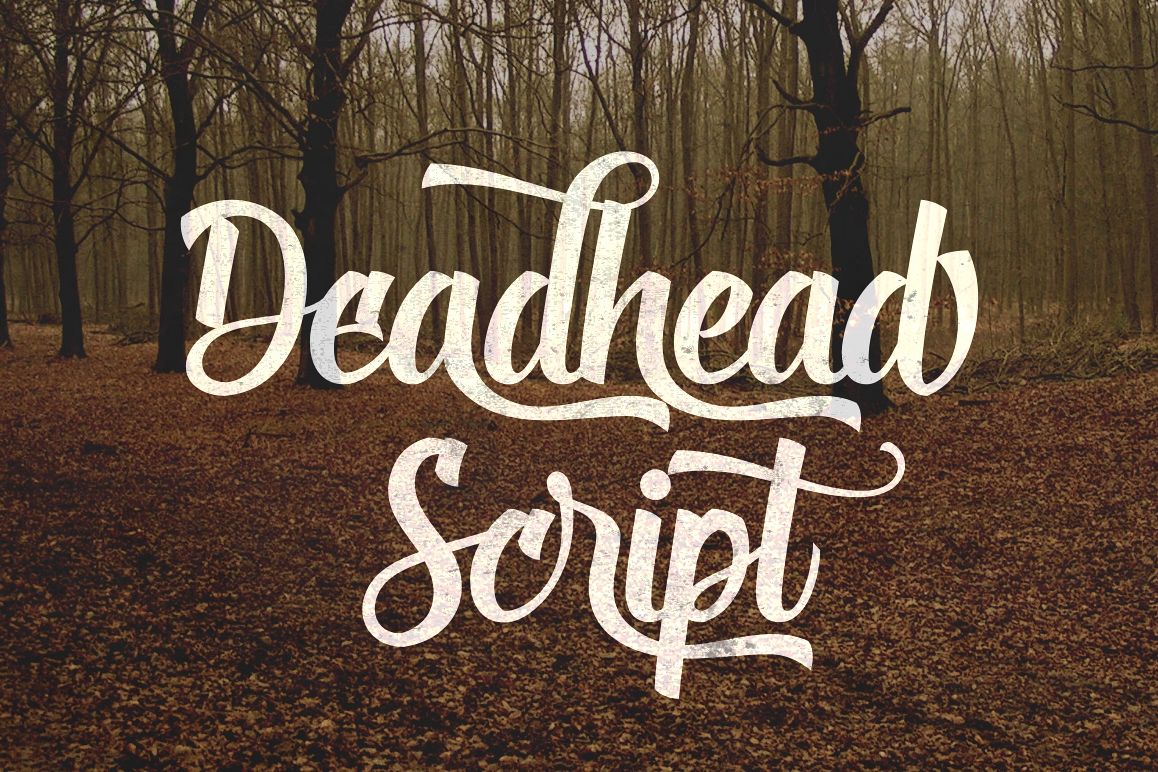
Deadhead Script
Deadhead Script is playful typeface that inspired from brush lettering.
Made with high attention to the details that will bring your design to the next level.
Suits best for almost all design themes; vintage, modern, gothic, etc.
Packed with 400+ glyphs, consist of:
• Numerals
• Accent / multilingual characters
• Basic Punctuations
• Titling
• Terminal forms
• Stylistic sets and alternates
• Swashes
• (lots of) Ligatures